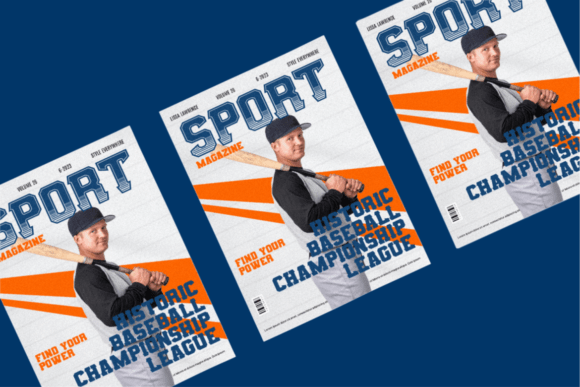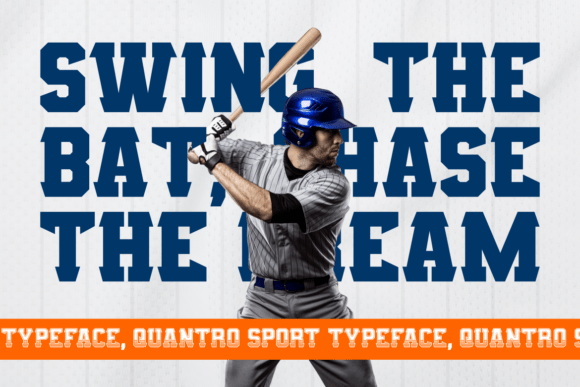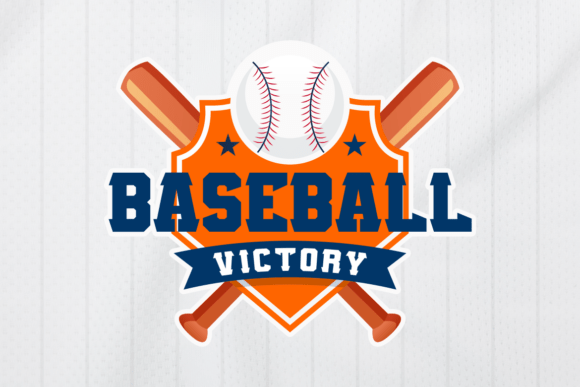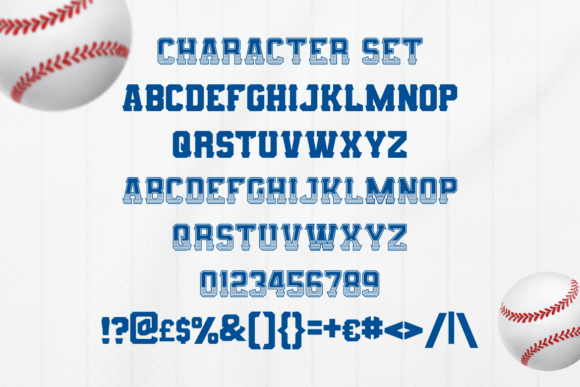
Introduction to Quantro Sport Font
Quantro Sport is a bold, commanding display font built for competitive impact.
This slab serif typeface embraces the traditional essence of American sports typography, echoing vintage baseball aesthetics with a modernized twist The font offers two distinctive styles — solid and line-shadowed — making it versatile for both clean and dynamic layouts.